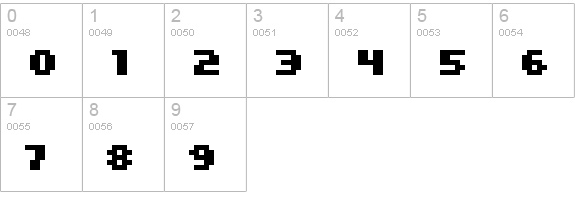
Kroeger 05_66 is a modern and stylish font that exudes elegance and sophistication. With its sleek lines and sharp angles, this font is perfect for creating eye-catching designs that command attention. The versatility of Kroeger 05_66 makes it suitable for a wide range of projects, from branding to editorial design. What sets Kroeger 05_66 apart is that it is available for free download at FontsMarket.com. This means you can easily access this stunning font and start using it in your projects without any cost. Don't miss out on the opportunity to enhance your designs with the unique charm of Kroeger 05_66 - download it now and let your creativity shine!